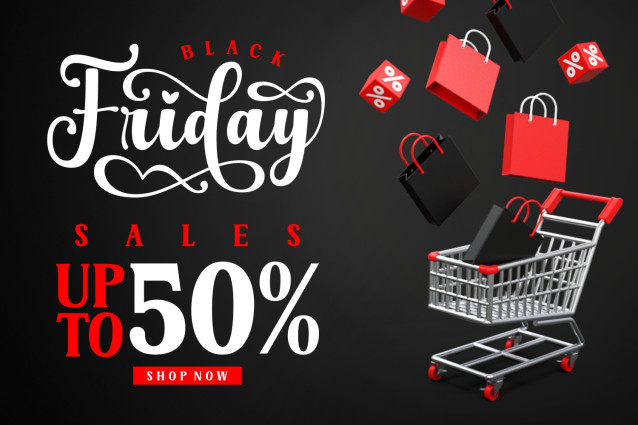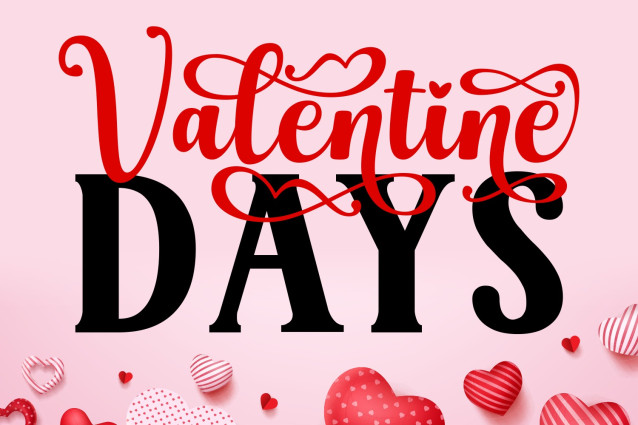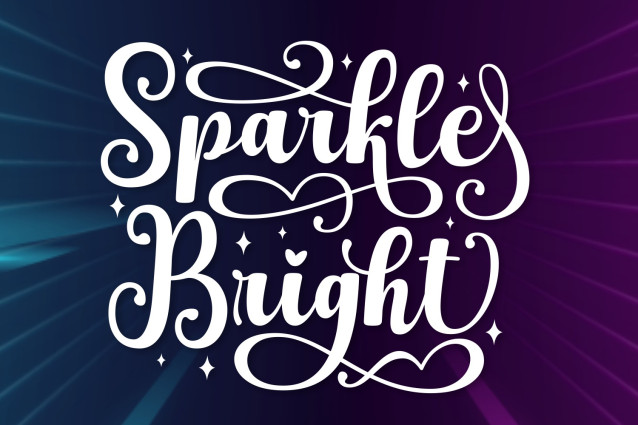
Sparkle Bright Font
Sparkle Bright is a stylish and distinct script font. This font is PUA encoded which means you can access all of the glyphs and swashes with ease!